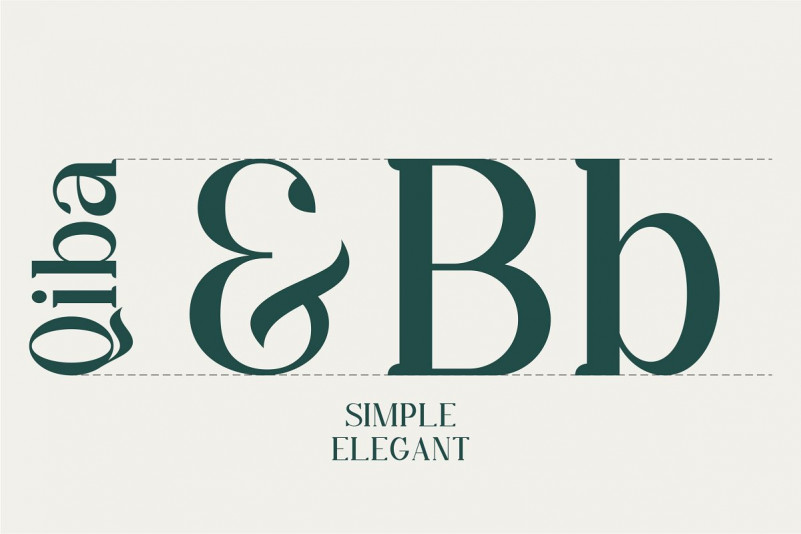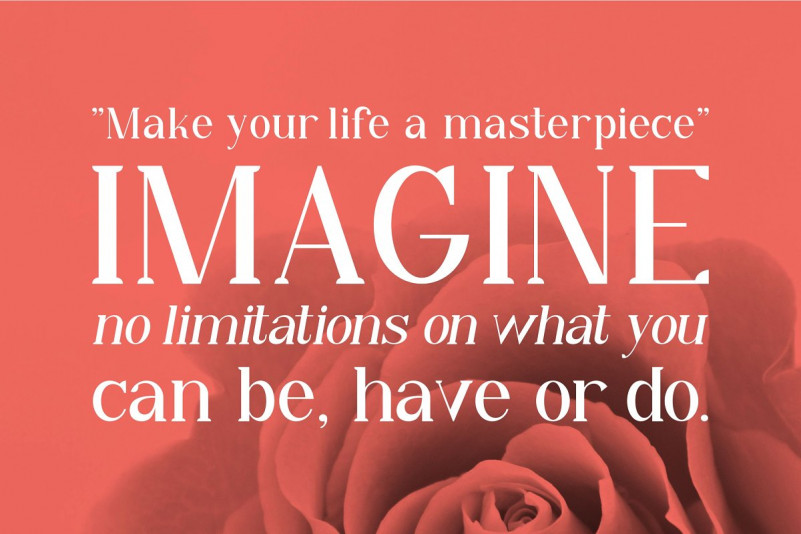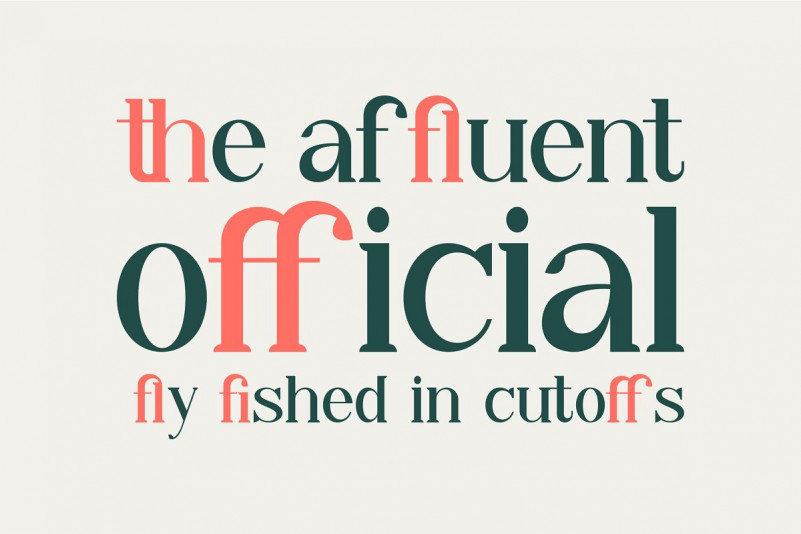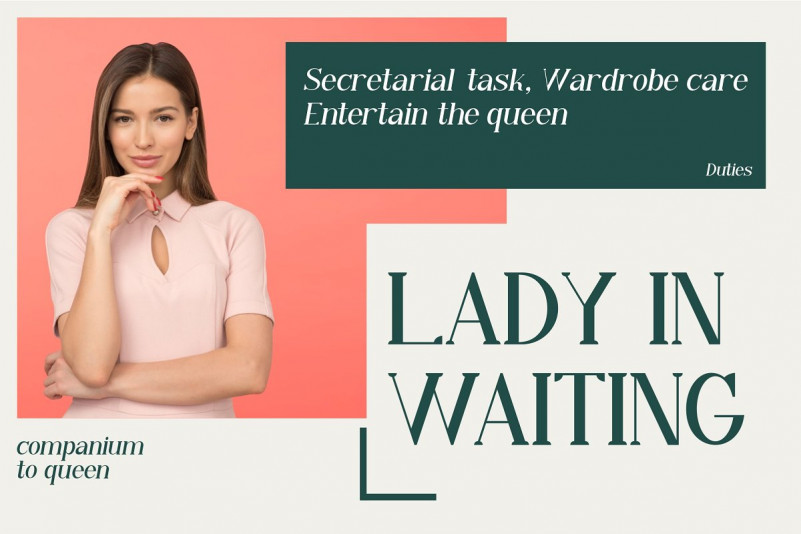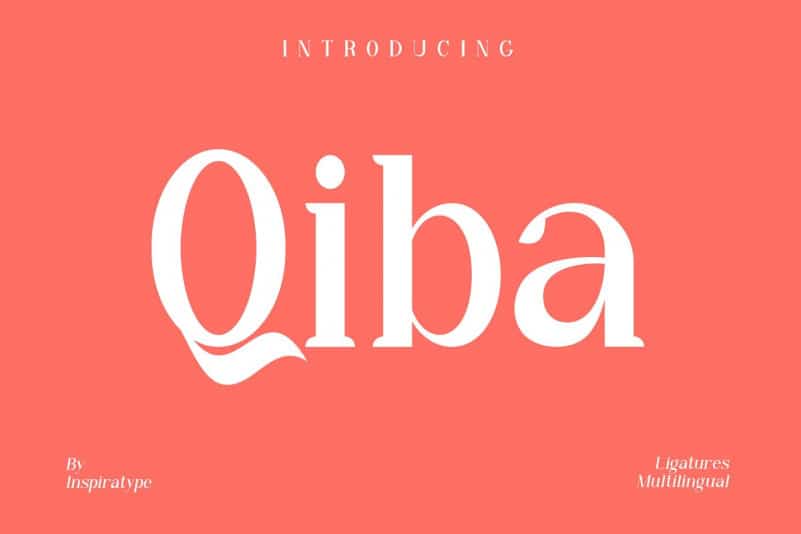
Qiba Serif Font
Qiba Serif Font – Free Demo
Qiba Font – The stylish serif font with 2 fonts that recommended for stylish and minimalist design. Carefully designed with medium contrast of the strokes. It is designed and shared by Inspiratype. “Qiba” is a font display that is made by hand, inspired by classic posters. Comes with uppercase, lowercase, numerals, punctuations and so many variations on each character include OpenType alternates, common ligatures and also additional swash to let you customize your designs. Perfect to use for Logotype, Letterhead, Poster, Apparel Design, Label and etc.